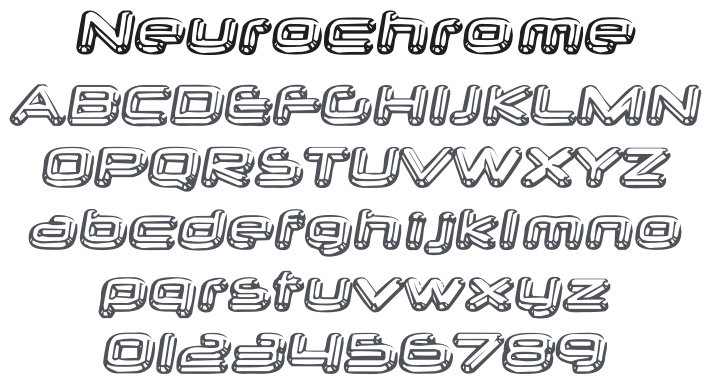
Neurochrome Font
About Neurochrome
Neurochrome is Neuropol — Ray Larabie's iconic geometric techno sans-serif — given a shimmering chrome 3D treatment. Bold, slightly slanted letterforms are extruded with a beveled metallic depth, giving each character a gleaming, reflective quality that feels straight off a sci-fi film prop. Perfect for game titles, cyberpunk branding, tech posters, metallic logos, and any headline that needs to look forged from polished steel.